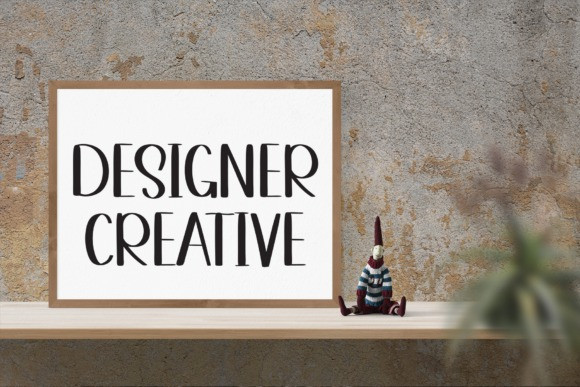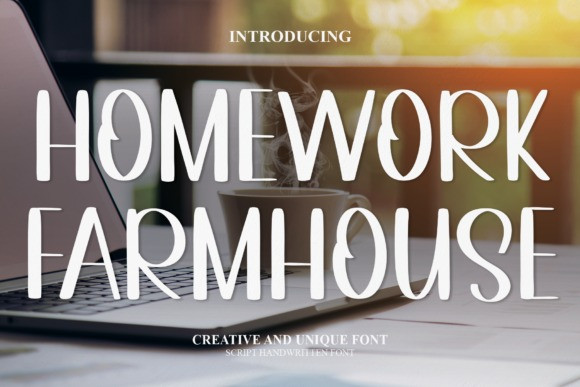
Homework Farmhouse Font
Homework Farmhouse Font is a playful and cool display font. The characters are perfect for wall hangings, wedding invitations, social media post logos, advertisements, product packaging, product designs, labels, photography, watermarks, invitations, stationery and any project that requires modern typography.